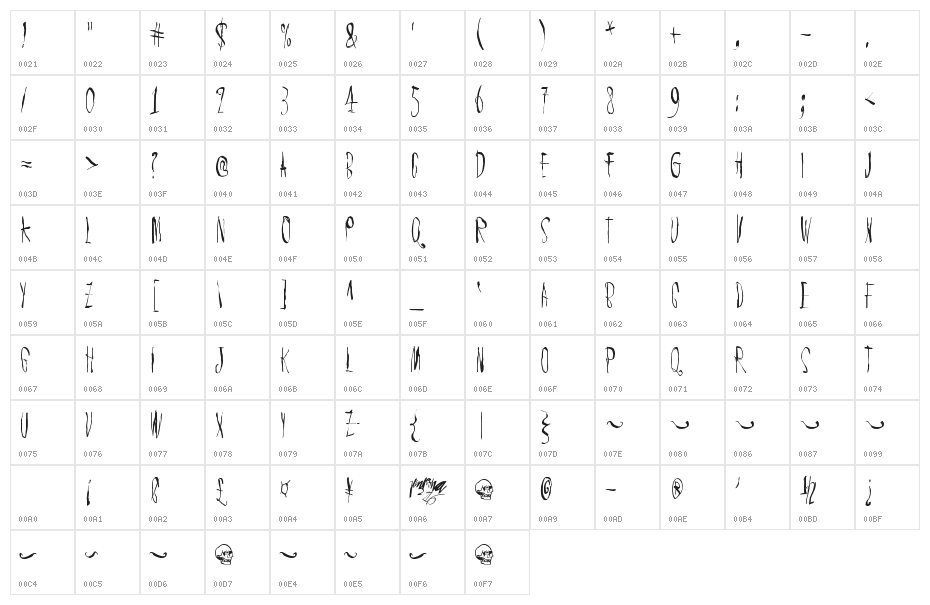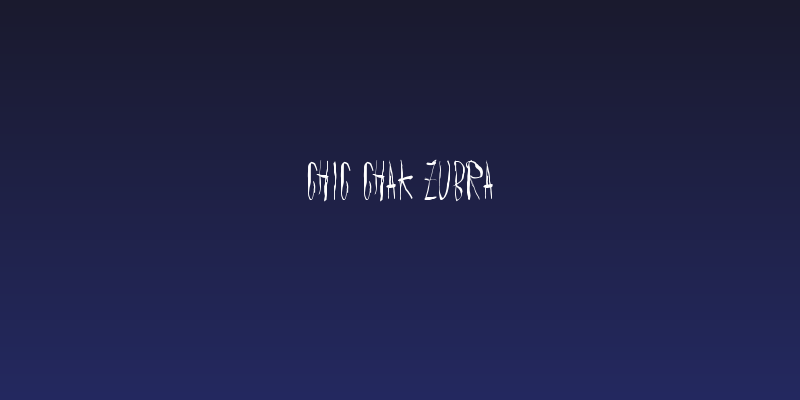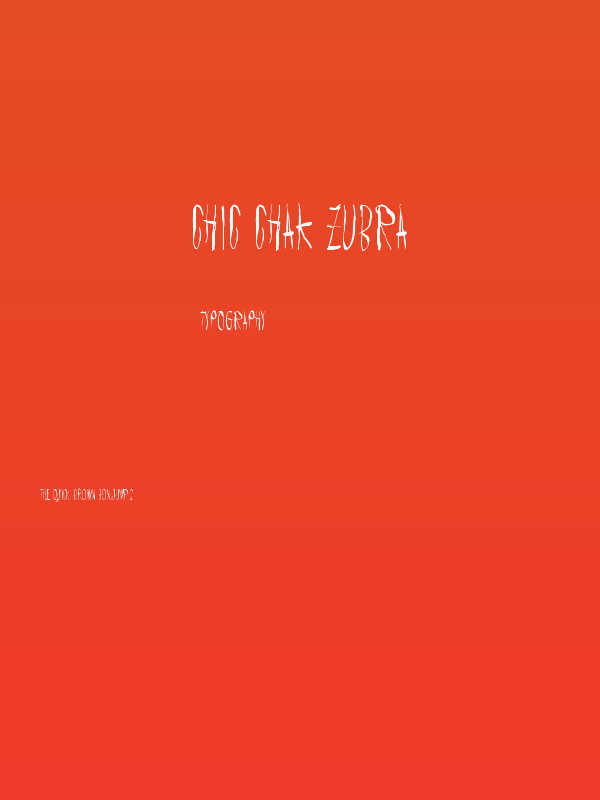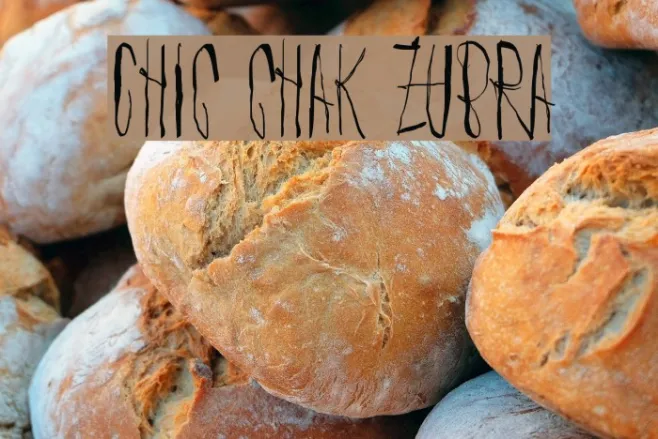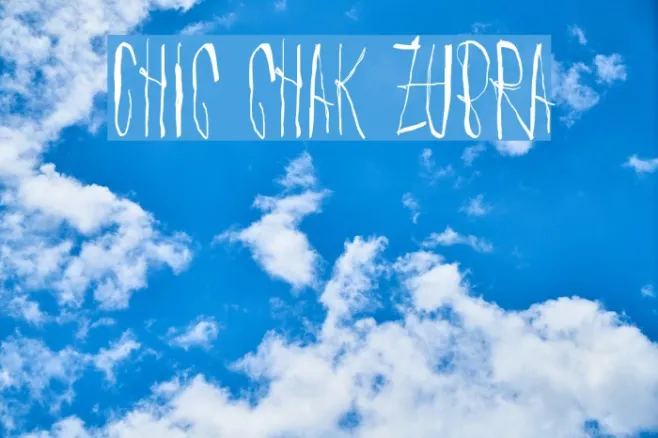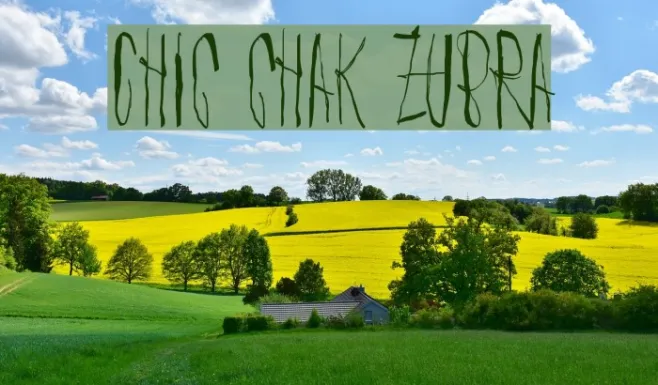
Chic chak zubra Font
Chic chak zubra Description
This font features a unique, hand-drawn style with an artistic flair, characterized by uneven strokes and a slightly chaotic appearance. The letters are tall and narrow, with varying line thickness that gives a dynamic and energetic feel. The uppercase and lowercase characters maintain a consistent style, with elongated forms and irregular edges that add to its distinctive look. The numbers and special characters follow the same aesthetic, making the font suitable for creative and unconventional projects. Its quirky and spontaneous design makes it stand out, perfect for capturing attention.
| Use Case | Headlines, Logos, Artistic projects |
| Proposed Projects | Ideal for artistic posters, album covers, creative branding, and unique invitations. |